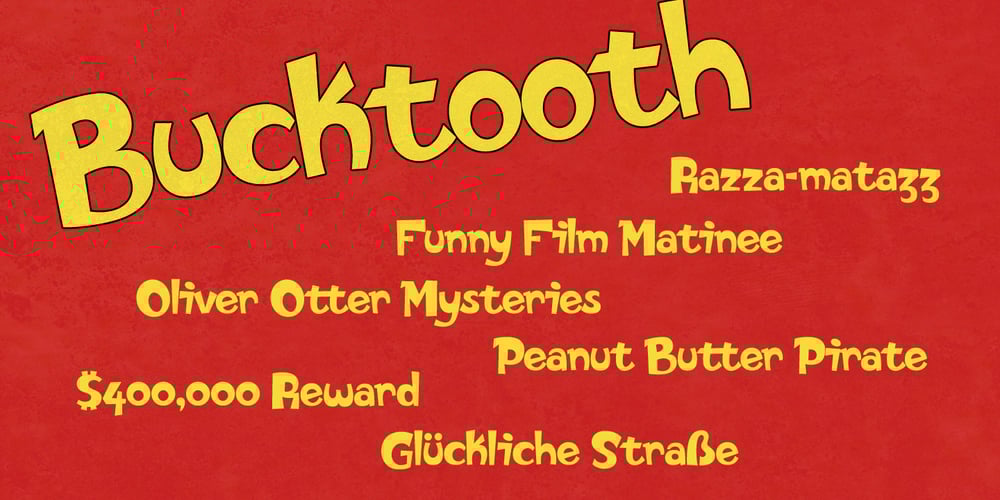
Bucktooth Font Family was designed by Ian Stone and published by Tymime Fonts. Bucktooth contains 1 styles and family package options. Bucktooth is a cartoony typeface, inspired by vintage funny-animal comic books, suitable for children’s entertainment, packaging or movie titles. Fancier and more upscale than your usual toon font, Bucktooth is fun with a touch of class.